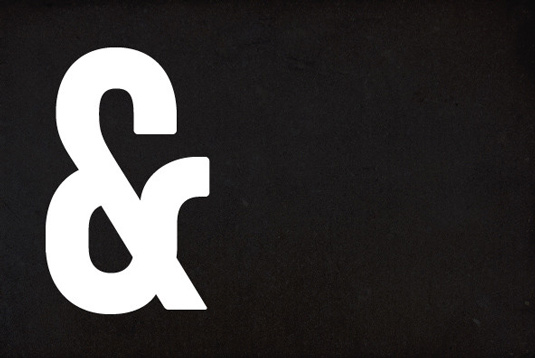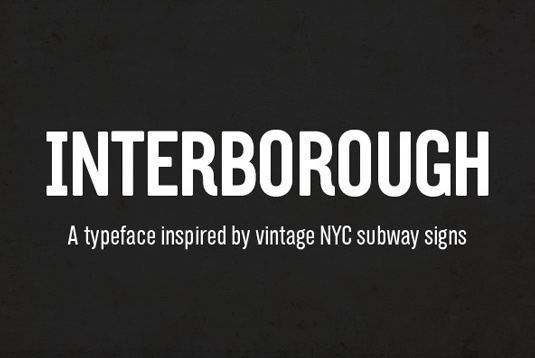
Font of the day: Interborough
Every day we showcase the best fonts on the web. Today it's Interborough by Giang Nguyen.
Interborough by Giang Nguyen
Today's font of choice, Interborough, was created by Siagon-based designer Giang Nguyen. He comments on his website: "The typeface is inspired from the signage system of IRT (Interborough Rapid Transit) New York subway system in the 1900s-1940s. The signage system was later replaced by Helvetica signage system by Massimo Vignelli due to its inconsistency.
"Interborough collects the inconsistent characteristics of those signs and combines with a personal touch to create a new, unique design itself. The sans serif typeface explores the American, compact modular style and try to balance the solid, geometric form with subtle curviness in minor eccentric details. Interborough employs a confident and optimistic look that is found in visual designs of early 20th century."